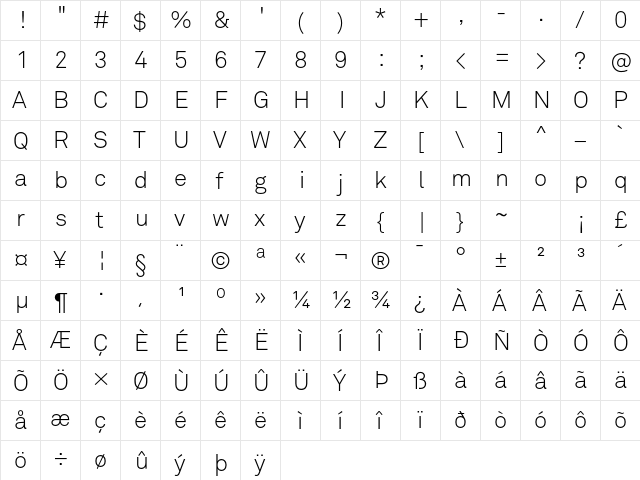
Akkurat Light Regular
| Foundry | Laurenz Brunner |
| Designer | Laurenz Brunner |
Design Context for Akkurat Light Typeface
Akkurat Light takes a measured approach to typography — its balanced proportions and neutral character make it a reliable workhorse for both digital and print work. The delicate stroke weight brings airiness and refinement to layouts.